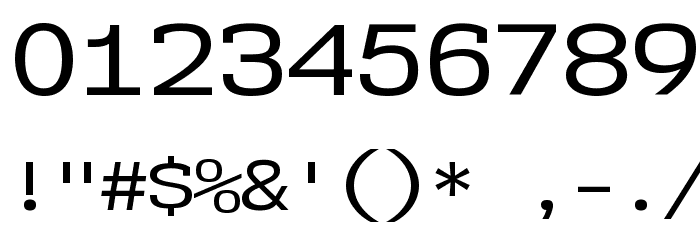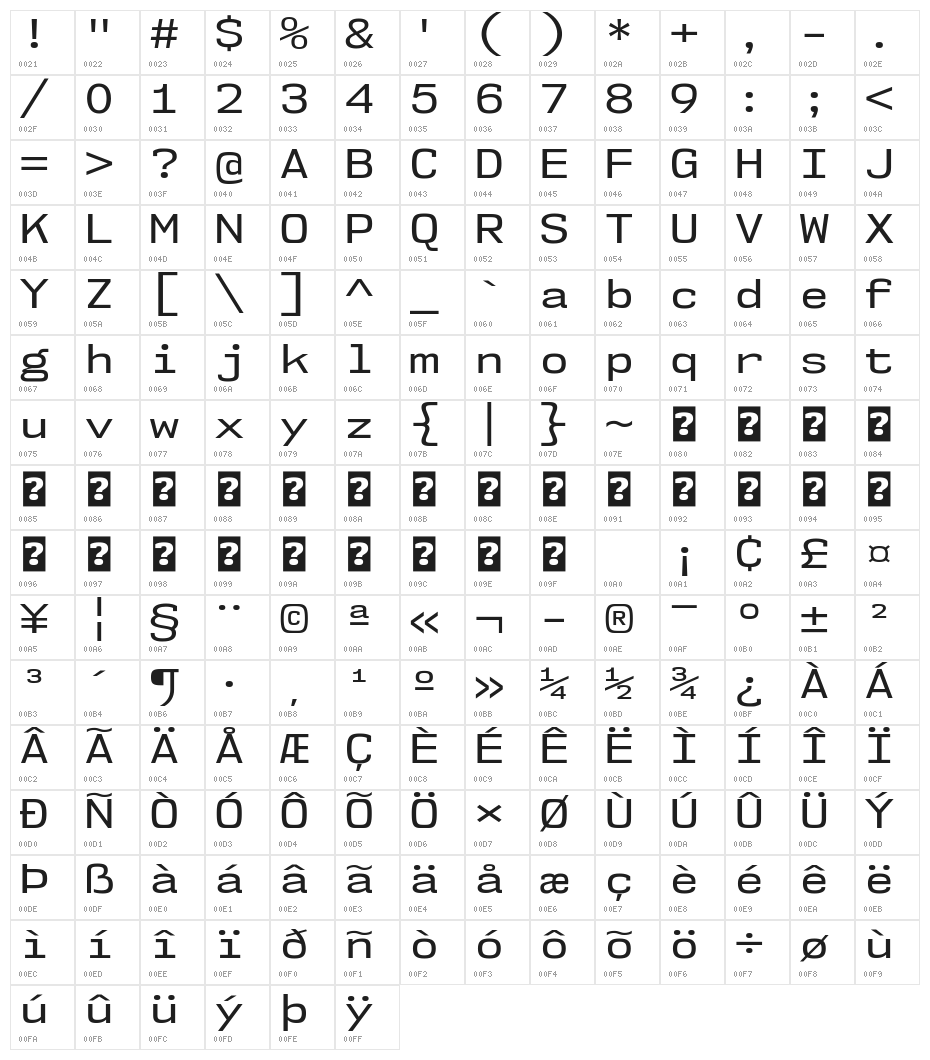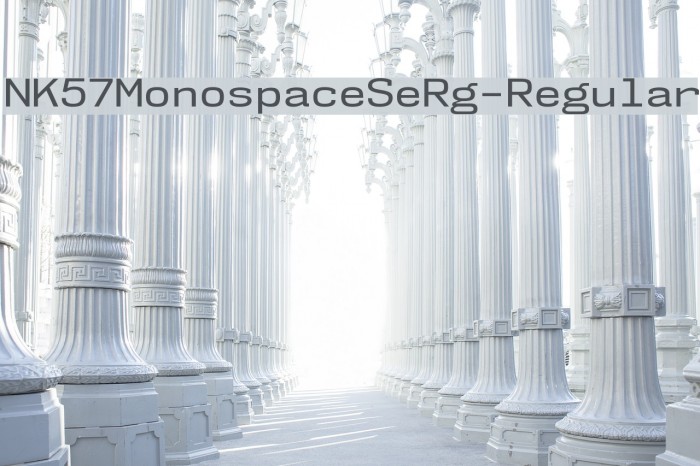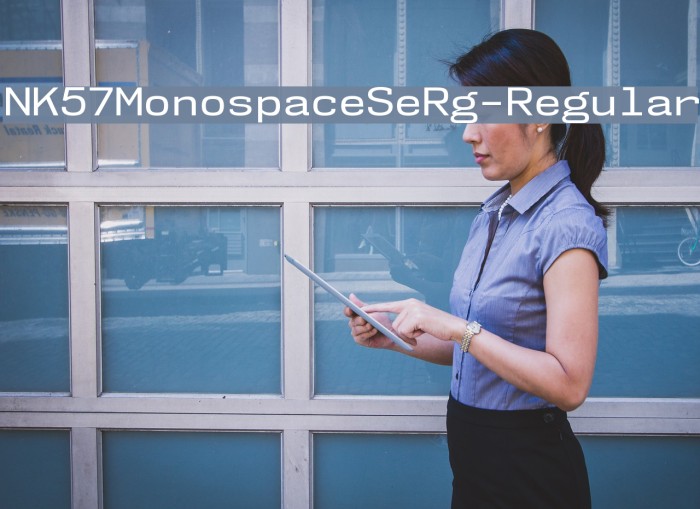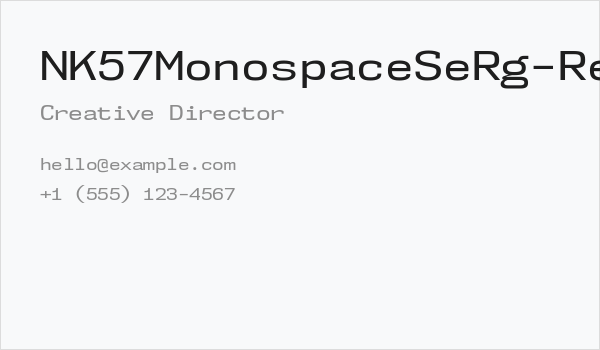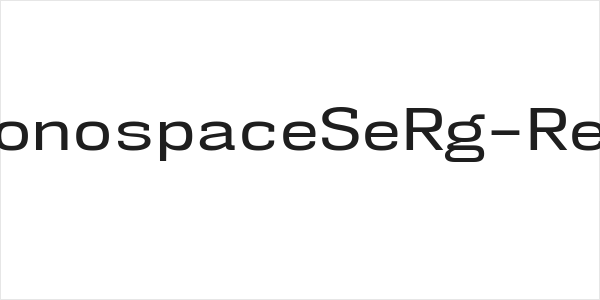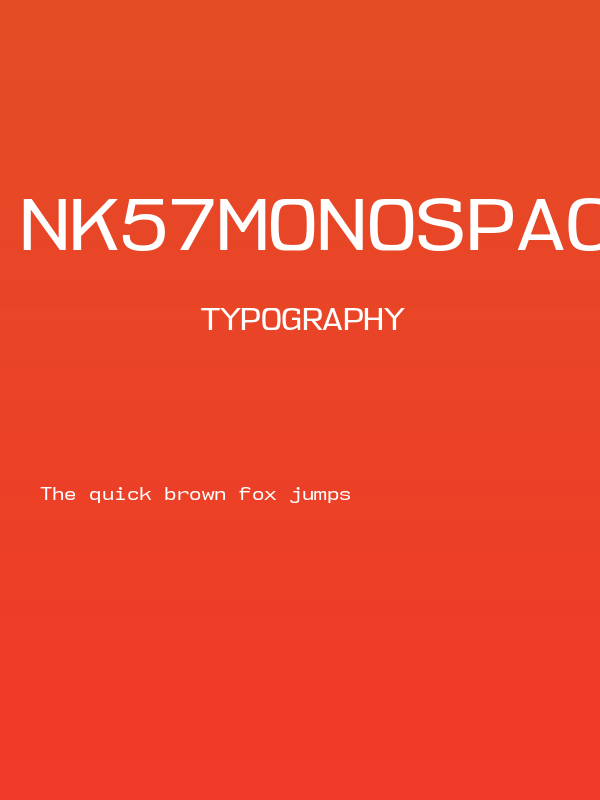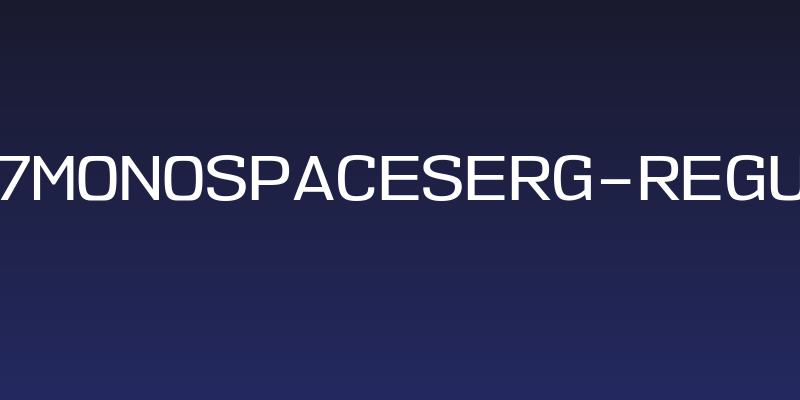
NK57MonospaceSeRg-Regular Font
NK57MonospaceSeRg-Regular Description
This font features a clean and structured design, characterized by its monospaced nature where each character occupies the same amount of horizontal space. The letters are crafted with precision, offering a modern and technical aesthetic. The uppercase and lowercase letters maintain a consistent height and width, providing a uniform appearance. The numerals are clear and easily distinguishable, making them ideal for data presentation. Special characters are well-defined, enhancing the font's versatility in various applications.
| Use Case | Coding, Technical documents, Data presentation |
| Proposed Projects | Ideal for coding environments, technical documents, and data presentation due to its clarity and uniformity. |